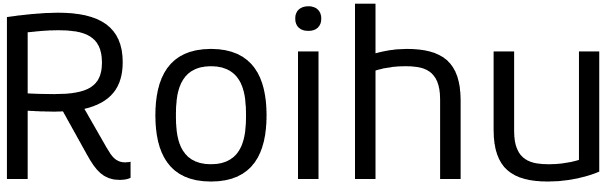
Roihu
Roihu is a sans serif type family with 16 fonts: eight upright and eight italic weights. Each weight offers more than 1,100 glyphs. Roihu includes some groovy stylistic alternates and swashes that make your titles, packaging, logos, etc. pop out...